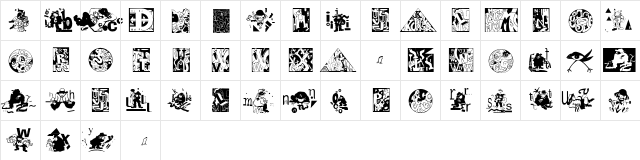
Letterly Regular
Design Context for Letterly Typeface
Letterly is a composed and adaptable typeface that performs quietly and consistently across a wide range of design contexts.